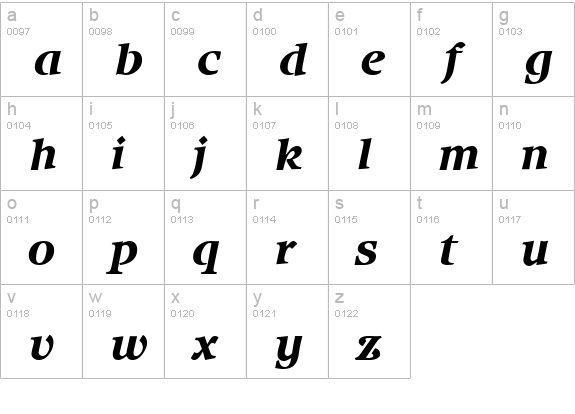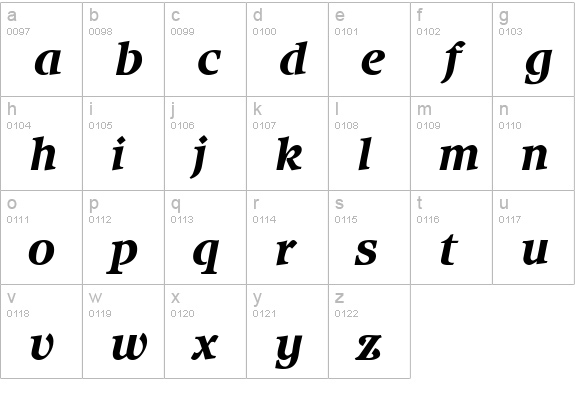
Isbell Bold Italic is a strong, high-contrast, italic variant in the Isbell typeface family \xE2\x80\x94 well suited to headlines, attention-grabbing titles, and strong calls-to-action.
Isbell Bold Italic font is a strikingly beautiful typeface that effortlessly combines boldness and elegance. Its strong, thick strokes are perfectly complemented by delicate, slanted italics, creating a unique and sophisticated look. This font is perfect for projects that require a touch of modernity and flair, as it adds a sense of confidence and style to any design. Whether you're working on a logo, branding materials, or a website, Isbell Bold Italic font will make your text stand out and leave a lasting impression. One of the best things about Isbell Bold Italic font is that it is free! You can easily download it from FontsMarket.com, a trusted source for high-quality fonts. This means that you can use this font for personal and commercial projects without any restrictions or limitations. The versatility of Isbell Bold Italic font is another reason why it is a must-have in your font library. It works well in both large and small sizes, ensuring legibility and readability in various contexts. Whether you need to make a bold statement or convey a sense of elegance, this font has got you covered. With its clean and modern design, Isbell Bold Italic font is a perfect choice for a wide range of applications. From digital to print, this font will elevate your designs and make them look professional and polished. Its timeless appeal and attention to detail make it a reliable choice for designers and creatives alike. In summary, Isbell Bold Italic font is a free, stylish, and versatile typeface that is sure to enhance your designs. Download it now from FontsMarket.com and start creating stunning visuals that leave a lasting impression.